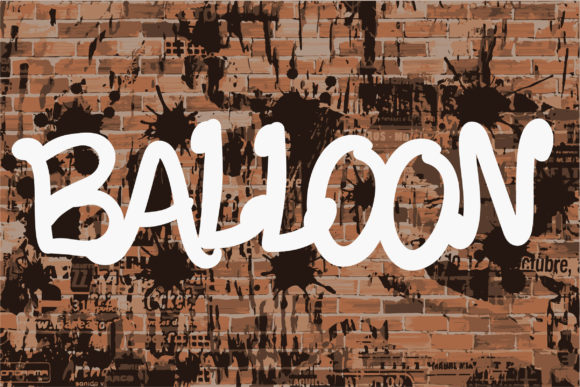
Getting Inspired by the Streets
As a designer, have you ever felt a rush of creativity while walking through a vibrant city street? The colors, the textures, the energy – it’s all so inspiring. And sometimes, it’s the little details that spark the most amazing ideas. For me, it was a graffiti mural that caught my eye, its bold letters and playful style instantly making me want to create something new.
That’s when I stumbled upon the perfect font to match my urban inspiration – the Balloon Font. This awesome, graffiti-styled display font is designed to evoke the spirit of street art, making it perfect for designs that need a bold, eye-catching touch. Whether you’re creating t-shirts, sportswear logos, or advertisements, the Balloon Font is sure to add a unique and edgy vibe to your work.
As a designer, having the right font can make all the difference in bringing your vision to life. That’s why the Balloon Font is a valuable addition to any design arsenal – it’s versatile, stylish, and guaranteed to make your designs stand out.
Key Features of Balloon Font
- Unique Characteristics: Balloon Font features a distinctive, playful design with rounded shapes and soft edges, making it ideal for children’s books, educational materials, and other applications where a friendly, approachable tone is desired.
- Font Style: Balloon Font comes in three main styles: Regular, Italic, and Bold, providing versatility for a wide range of applications and design needs.
Designer Review: Balloon Font
Overall, I’d say the Balloon Font is a playful, whimsical choice that’s perfect for projects that need a touch of fun and personality. ✨ The font’s unique balloon-like shapes add a touch of magic to text, making it ideal for branding, advertising, and even editorial design.
One of the standout features of the Balloon Font is its versatility. ✨ It comes in a range of weights and styles, from light and airy to bold and vibrant. This makes it easy to use in a variety of contexts, from headings and titles to body text and captions.
While the Balloon Font is a lot of fun to work with, there are a few limitations to consider. ⚠️ For one, the font can be quite busy and overwhelming if used extensively. This makes it best suited for projects where a bold, eye-catching statement is needed.
Another limitation is the font’s potential for readability issues. ⚠️ In some cases, the balloon shapes can make it difficult to read text, particularly in smaller sizes or when used in complex layouts.
In conclusion, the Balloon Font is a fun and versatile choice for designers looking to add a touch of whimsy to their projects. While it may have some limitations, its unique style and range of weights make it a great option for branding, advertising, and editorial design.
Recommendations
For best results, use the Balloon Font in moderation, reserving it for headings, titles, and other high-impact elements. Be sure to pair it with a clear, readable font for body text to avoid readability issues.
- Best for: Branding, advertising, editorial design
- Not ideal for: Complex layouts, large blocks of text
- Pair with: Clear, readable font for body text
The Balloon Font is ideal for creating playful and whimsical designs, such as:
- Wedding and event invitations.
- Social media graphics and ads.
Remember to experiment with different font sizes, colors, and combinations to get the most out of the Balloon Font.